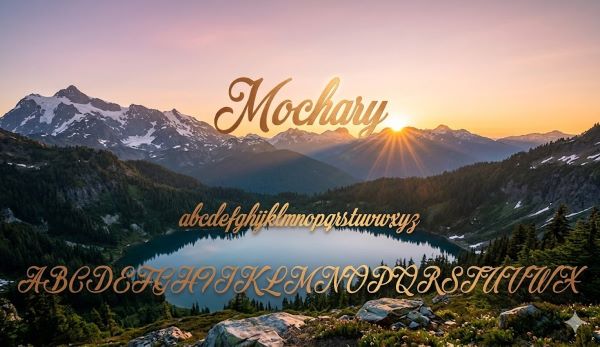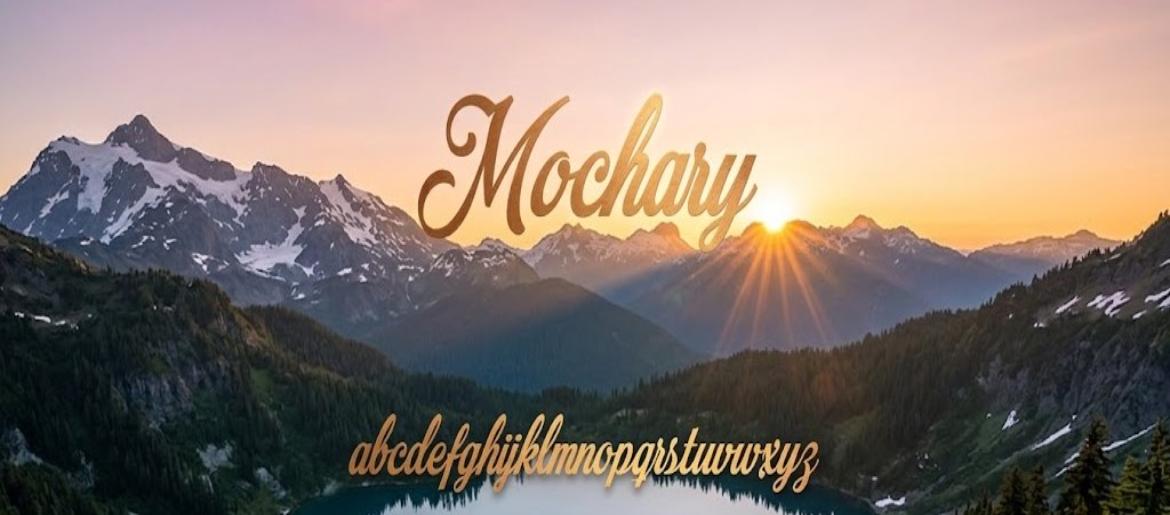
Mochary Font
Mochary by Mans Greback is a soulful calligraphic https://designbeep.com/tag/cursive-font/ that carries an unmistakable sense of elegance and spiritual depth. Its flowing, swash-accented letterforms evoke the craft of fine penmanship while maintaining a warmth and approachability that keeps it from feeling cold or formal. A natural choice for classic movie titles, theatrical posters, cosmetic packaging, novel introductions, and personal correspondence — any setting where the words deserve to be dressed in something beautiful. Free for personal use.